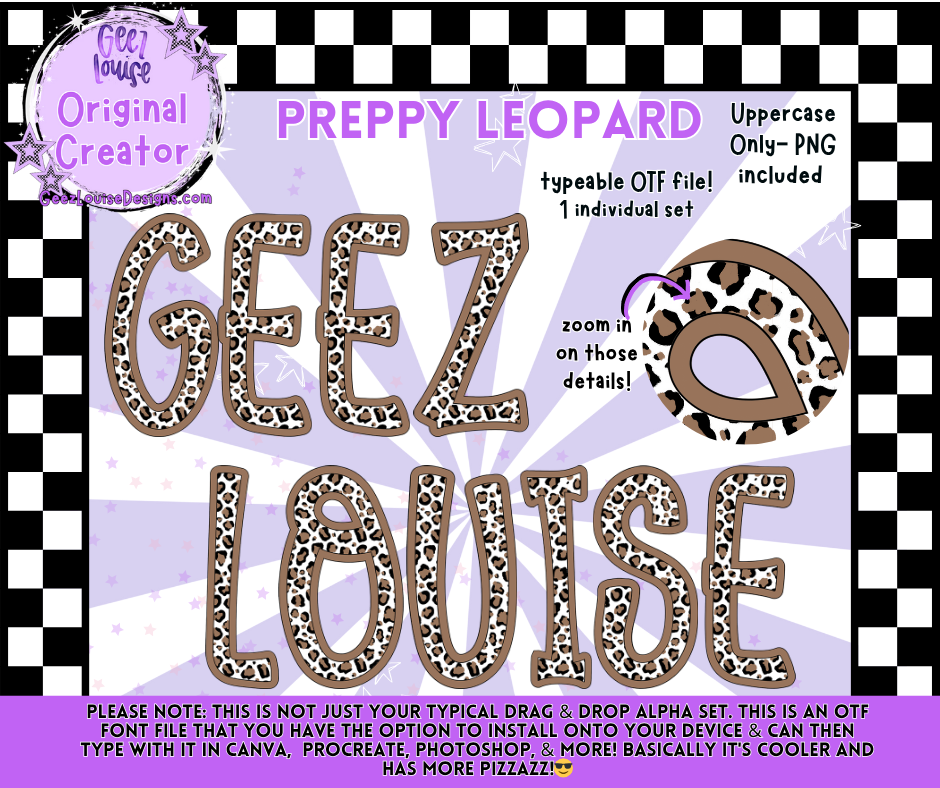
Preppy Leopard Font β Typeable OTF + PNG
Add a fierce and fabulous touch to your designs with the Preppy Leopard Font! πβ¨
Uppercase only for a strong, bold aesthetic.
Classic leopard print for timeless preppy style.
π‘ Perfect for trendy designs, apparel, graphics, and bold statement projects!